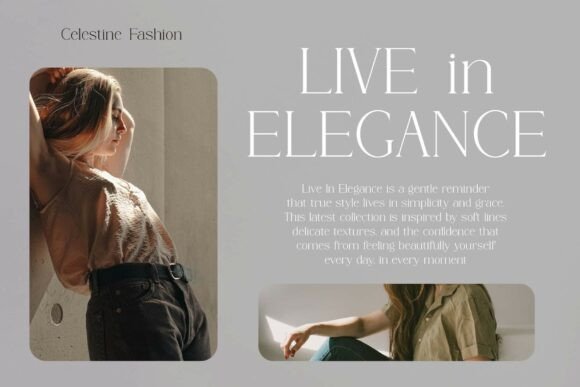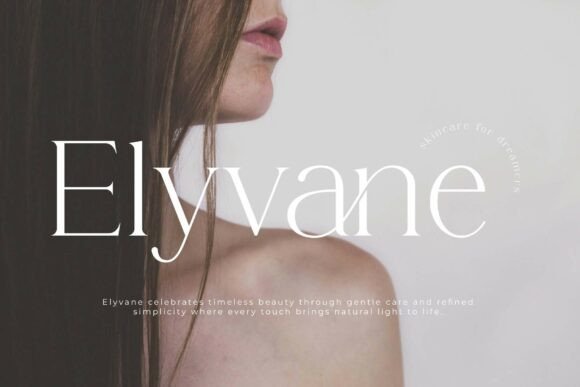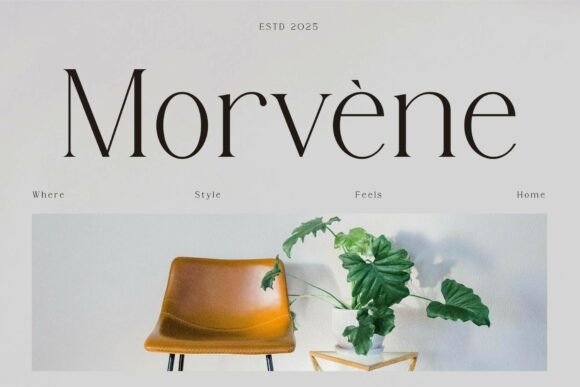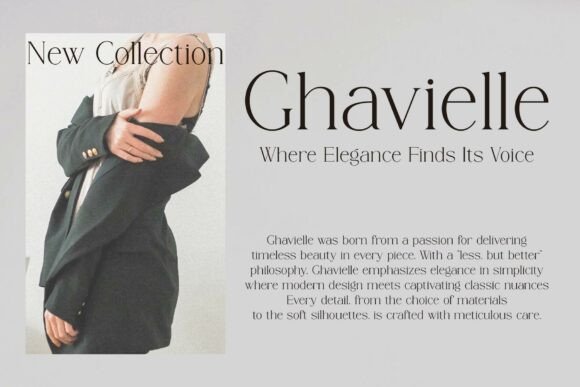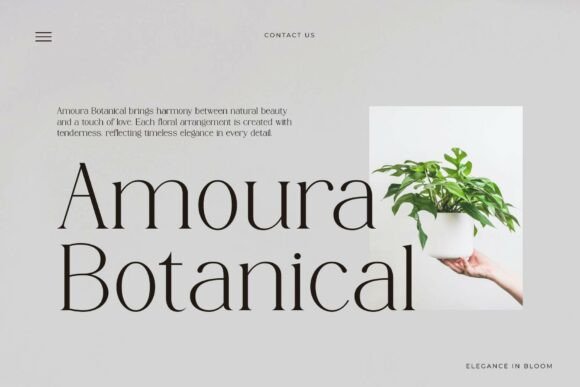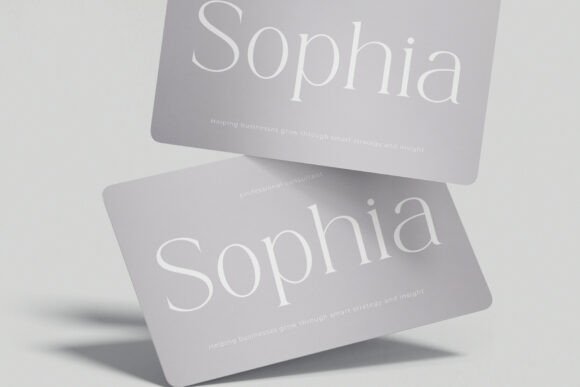
Introduction to Rergian Font
Have you ever stared at a blank page, waiting for the perfect font to spark your next creative project? That’s exactly what happened to me the day I discovered the Rergian Font. As I scrolled through design inspiration boards, one phrase kept popping up: “elegance in simplicity.” It was then that I stumbled upon this sleek display typeface that embodies the perfect balance between minimalist and expressive qualities.
The Rergian Font features clean, elongated serif letterforms that dance across the page with dramatic, rhythmic swashes and custom-feel ligatures. Its airy, poetic personality makes it an ideal choice for high-quality branding, packaging, and social media headers. As a designer, having access to a versatile font like Rergian can be a game-changer, allowing you to create stunning visuals with ease. In this article, we’ll dive into the world of Rergian and explore why it’s a valuable design resource for any creative project.
Key Features of Rergian Font
- Unique, high-quality design perfect for creative projects requiring a modern touch.
- Features a transparent background, ideal for use in digital design, graphic design, and web design projects.
- Supports a wide range of languages, making it a versatile design tool for global creative projects.
Honest Review: Rergian Font
I recently came across the Rergian Font, and I was excited to try it out for my next creative project. The first thing I noticed was the high quality of the font. The letters were smooth and well-defined, making it perfect for any design resource.
One of the standout features of the Rergian Font is its transparent background. This made it easy to place it on top of any image or background without worrying about the text getting lost.
- High-quality font with smooth letters
- Transparent background for easy placement
- Only available in one weight, which may limit its use in certain creative projects
- No italic or bold versions available
Overall, I was impressed with the Rergian Font. It’s a great addition to any designer’s toolkit, and the free download makes it a fantastic design resource. While it has some limitations, I would definitely recommend it for any creative project.
To get the most out of the Rergian Font, use it on a transparent background to create a clean and modern design. This will also make it easier to combine with other design elements.
The Rergian Font is commonly used in creative projects, such as logos, business cards, and brochures. Its unique design and high quality make it an excellent design resource for any project.
Can I use the Rergian Font with a transparent background?
Yes, the Rergian Font has a transparent background, making it easy to use in creative projects that require a high level of design flexibility. The font’s transparent background also allows for easy layering and composition in design applications, such as Adobe Photoshop and Illustrator.